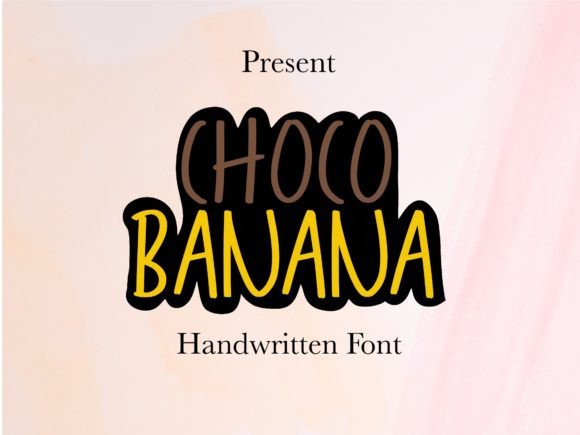
Choco Banana is a handwritten font with a playful personality that is sure to add a smile to your face and your designs. Its playful and bouncy nature makes it perfect for adding a touch of whimsy to your projects, and its handwritten style gives it a personal and charming feel.
With Choco Banana, you can add a dash of sweetness to your brand's personality, with its charming and friendly vibe that is sure to leave a lasting impression on your audience.
This dazzling font is incredibly versatile and can be used for a wide range of creative projects - from greeting cards to social media posts and even packaging design. Its bold and eye-catching nature makes it the perfect choice for headlines and logos that are sure to stand out from the crowd.
Dive into the world of endless creativity with Choco Banana, where your design ideas will take flight. It's the perfect font for playful and lighthearted designs that are sure to make an impact.